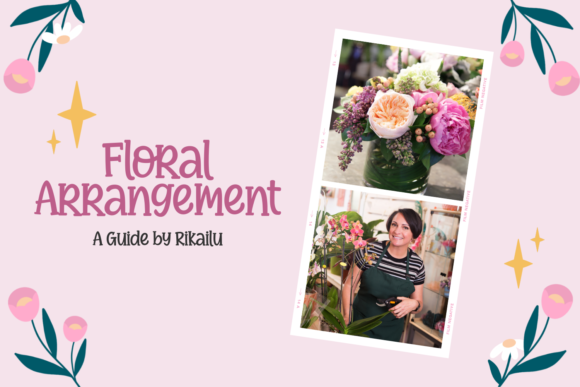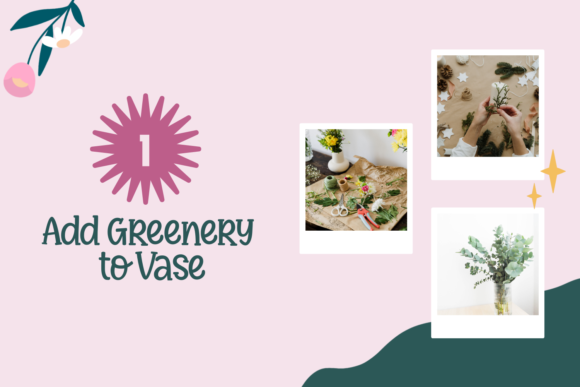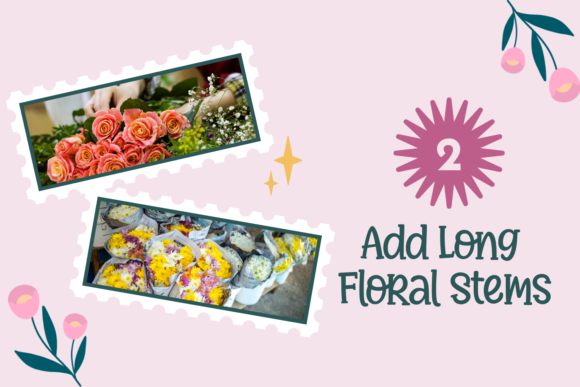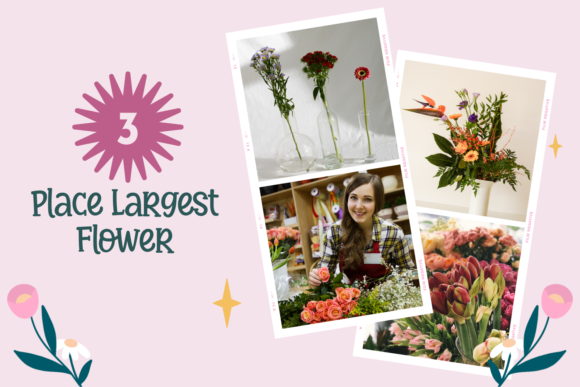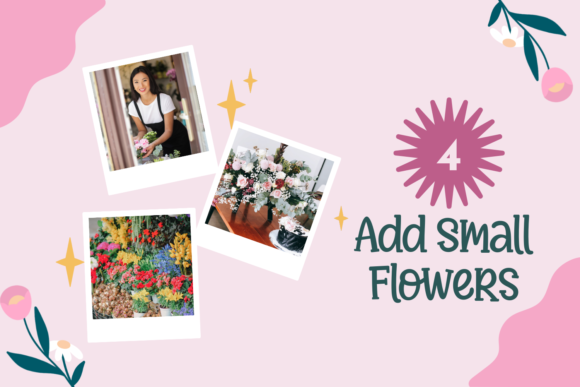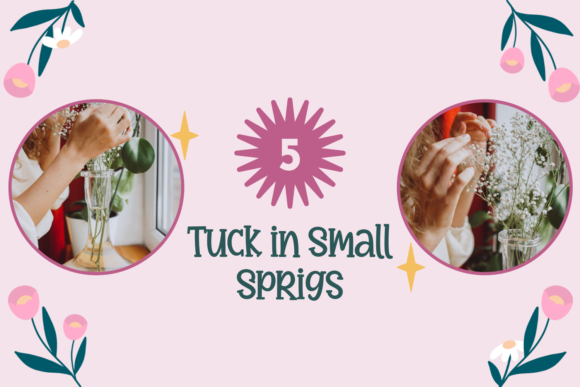
Introducing Classy Flowers Font: The Perfect Addition to Your Design Arsenal
Are you tired of using the same old fonts in your designs? Look no further! Classy Flowers Font is here to add a touch of joy and whimsy to your creations. This cute, playful, and quirky serif font is perfect for designers and crafters looking to add some personality to their work.
What Makes Classy Flowers Font So Special?
Classy Flowers Font is a unique and eye-catching font that is sure to make your designs stand out. Its serif style gives it a classic touch, while its playful and quirky feel makes it perfect for a wide range of projects. Whether you’re working on a cartoon-related design, a children’s game, a quote, title, brand name, book cover, poster, or any other creation that requires a touch of joy, Classy Flowers Font is a great choice.
One of the best things about Classy Flowers Font is its versatility. It’s perfect for a wide range of projects, including:
- Cartoon-related designs: Add a touch of fun and playfulness to your cartoon characters and storyboards.
- Children’s games: Create engaging and interactive games that kids will love, with a font that’s fun and easy to read.
- Quotes and titles: Add a touch of personality to your quotes and titles, making them stand out on social media, posters, and other materials.
- Brand names: Create a unique and memorable brand identity with Classy Flowers Font.
- Book covers: Add a touch of whimsy and charm to your book covers, making them stand out on bookshelves and online.
- Posters: Create eye-catching posters that grab attention, with a font that’s fun and playful.
Why Choose Classy Flowers Font?
There are many reasons why Classy Flowers Font is a great choice for designers and crafters. Here are just a few:
- Unique and eye-catching: Classy Flowers Font is a one-of-a-kind font that’s sure to make your designs stand out.
- Playful and quirky: Add a touch of joy and whimsy to your designs, making them more engaging and fun.
- Versatile: Use Classy Flowers Font for a wide range of projects, from cartoon-related designs to book covers and posters.
- Easy to read: Despite its playful feel, Classy Flowers Font is easy to read, making it perfect for body text and headlines.
Tips for Using Classy Flowers Font
Here are a few tips for getting the most out of Classy Flowers Font:
- Use it sparingly: While Classy Flowers Font is perfect for adding a touch of joy to your designs, it’s best used sparingly. Use it for headlines, titles, and other key elements, and pair it with a more traditional font for body text.
- Experiment with colors: Classy Flowers Font looks great in a variety of colors, from bright and bold to pastel and soft. Experiment with different colors to find the perfect look for your design.
- Pair it with other fonts: Classy Flowers Font pairs well with a wide range of fonts, from traditional serif fonts to modern sans-serif fonts. Experiment with different pairings to find the perfect look for your design.
Classy Flowers Font is a unique and eye-catching font that’s perfect for designers and crafters looking to add a touch of joy and whimsy to their creations. With its playful and quirky feel, versatility, and ease of use, it’s a great choice for a wide range of projects. Whether you’re working on a cartoon-related design, a children’s game, a quote, title, brand name, book cover, poster, or any other creation that requires a touch of joy, Classy Flowers Font is a great choice.